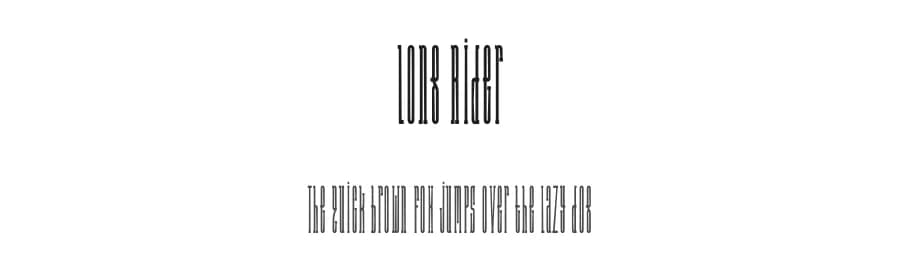
About Long Rider Font
Long Rider - The Cowboy Font
- Long Rider Regular (Standard uppercase and and lower characters)
- Long Rider Alternate (Features Alternative lowercase characters)